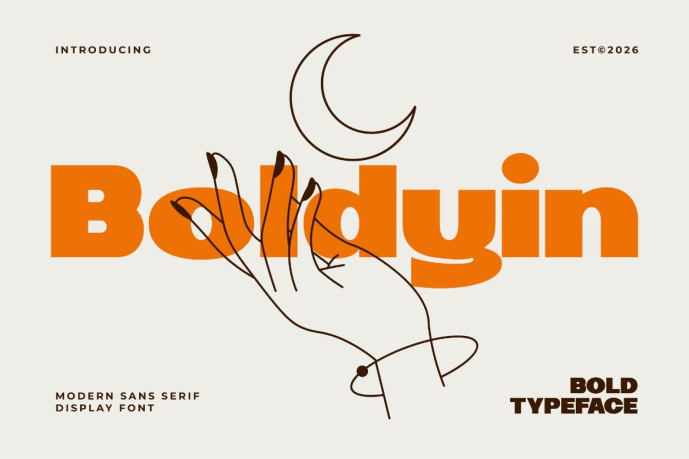
Boldyin Font
Designer: Saeful Maarif
Boldyin is a bold modern sans serif display font crafted to deliver clean impact with a warm, approachable personality. Built with chunky geometric forms, soft curves, and balanced proportions, Boldyin combines contemporary minimalism with expressive character, making it an excellent choice for modern branding and standout headlines.
Designed for versatility, Boldyin performs beautifully across logos, packaging, posters, social media, editorial layouts, and digital campaigns. Its confident yet friendly appearance allows it to adapt effortlessly to lifestyle brands, fashion labels, food packaging, beauty products, creative agencies, and startup identities.
Whether you’re building a bold visual identity or creating attention-grabbing marketing materials, Boldyin offers the perfect blend of simplicity, readability, and modern style.